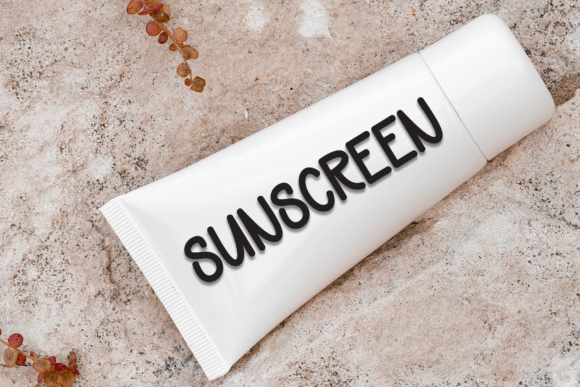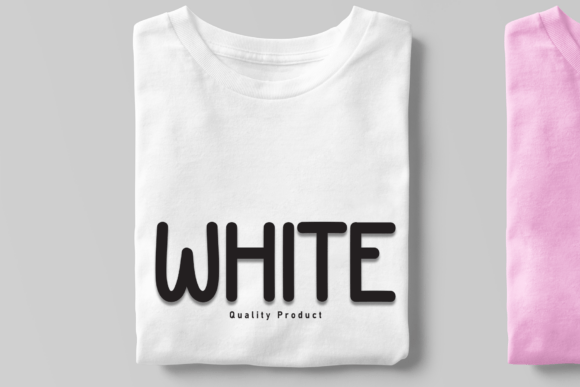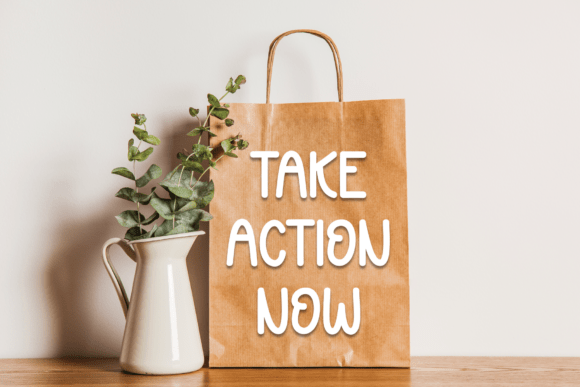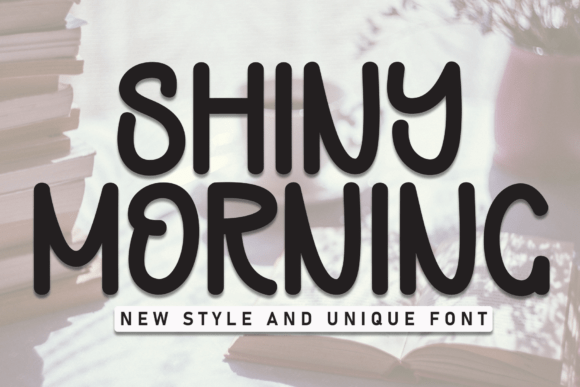
Introduction to Shiny Morning Font
Introducing a wonderfully warm and inviting handwritten display font: a harmonious blend of sweetness and friendliness.
This engaging typeface, with its adorable quirks, is the perfect match for your special occasion stationery like wedding invitations and heartfelt greetings cards Plus, it’s an absolute gem for any design project that calls for a touch of joy and charm.